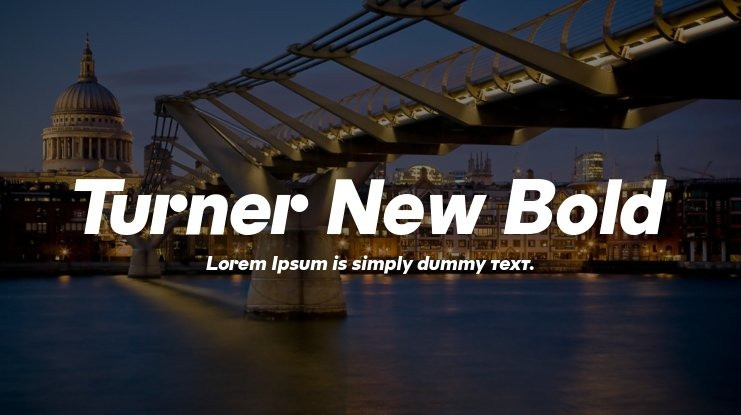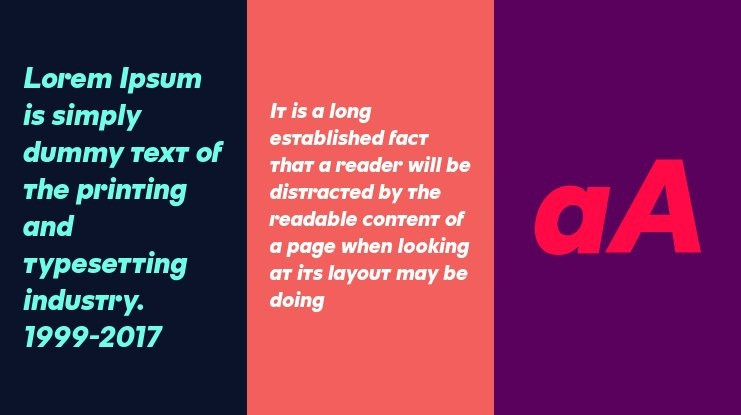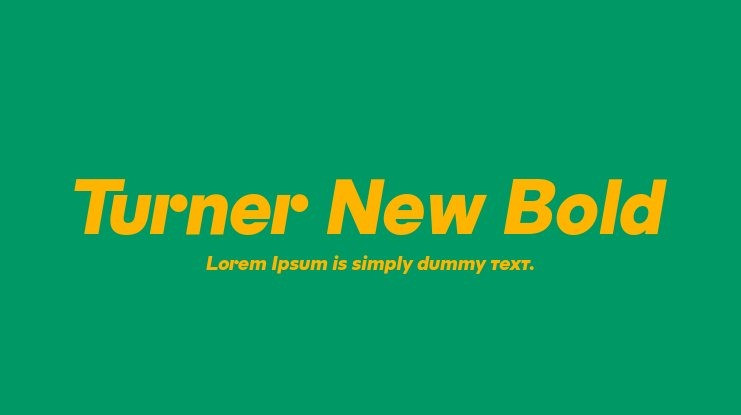
Turner New Sans Serif Font, This font was created for all forms of business and branding such as clothing, logos, skate boards and others according to your needs.
Turner New Font
| Classification: | Sans Serif Fonts, Style / Aesthetic Fonts |
Turner New